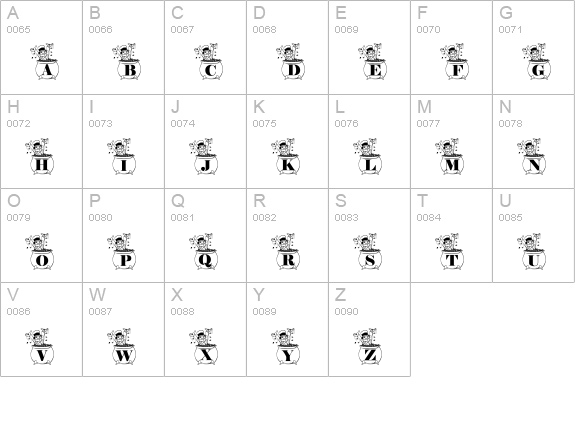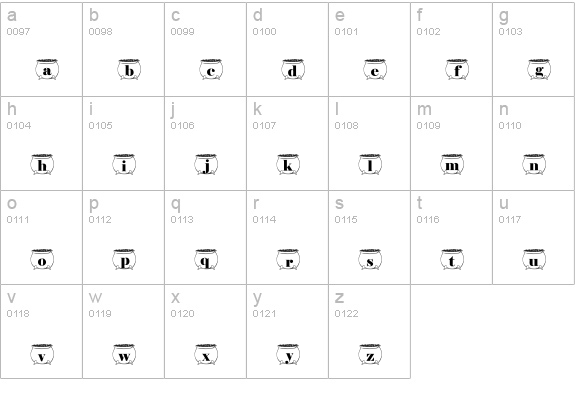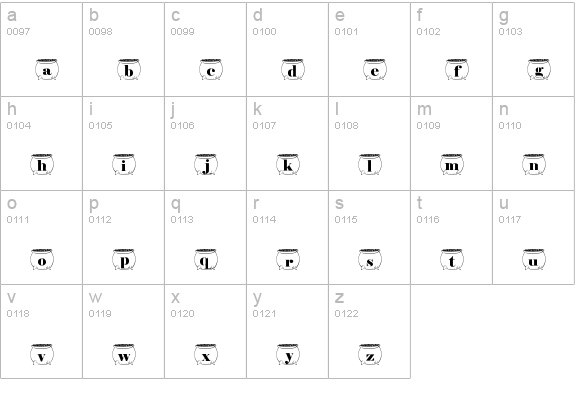
STPATS_KG font is a unique and stylish typeface that captures the essence of the St. Patrick's Day celebration. With its intricate and decorative design, this font is sure to add a touch of charm to any project related to the Irish holiday. The letters are beautifully crafted, with each stroke carefully placed to create a visually stunning display. What makes STPATS_KG font even more appealing is that it is available for free download at FontsMarket.com. This means that you can easily access and use this font in your personal and commercial projects without any cost. Whether you're designing invitations, greeting cards, posters, or any other St. Patrick's Day-themed materials, this font will elevate your designs to a whole new level. The versatility of STPATS_KG font is also worth mentioning. It can be used in various sizes and styles, making it suitable for both headlines and body text. The attention to detail and the unique character of this font make it stand out from the crowd, ensuring that your designs will be noticed and remembered. So why wait? Give your St. Patrick's Day projects a touch of elegance and sophistication with the STPATS_KG font. Download it for free at FontsMarket.com and let your creativity flourish. With its stunning design and easy accessibility, this font is a must-have for any designer or enthusiast looking to make a statement on this festive occasion.